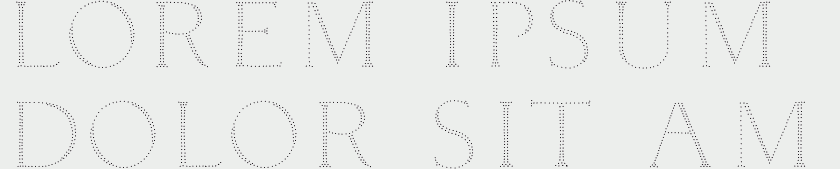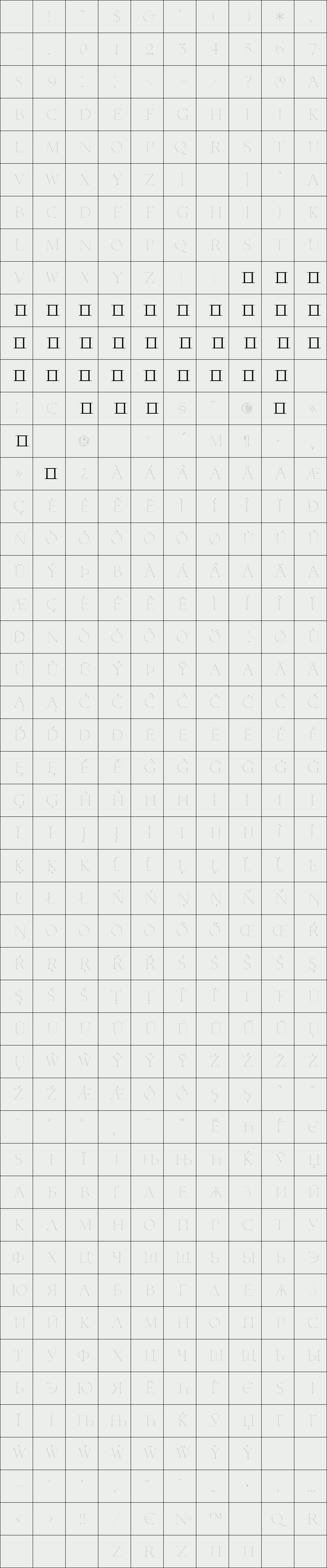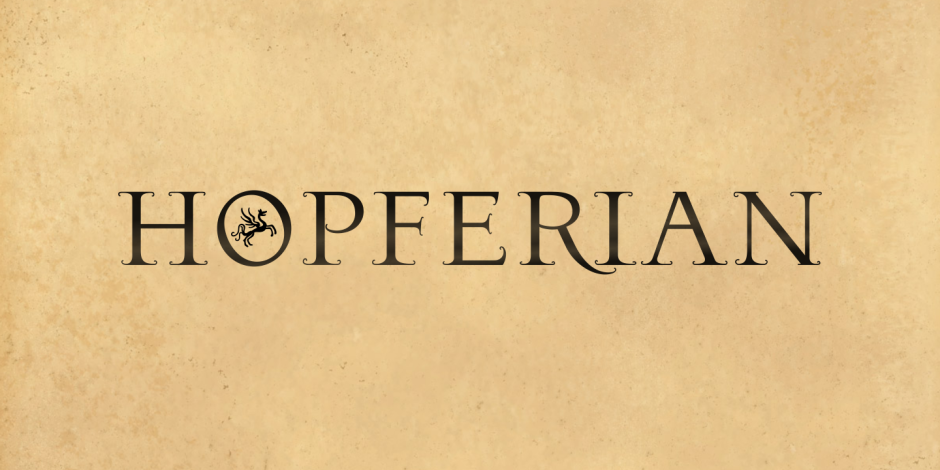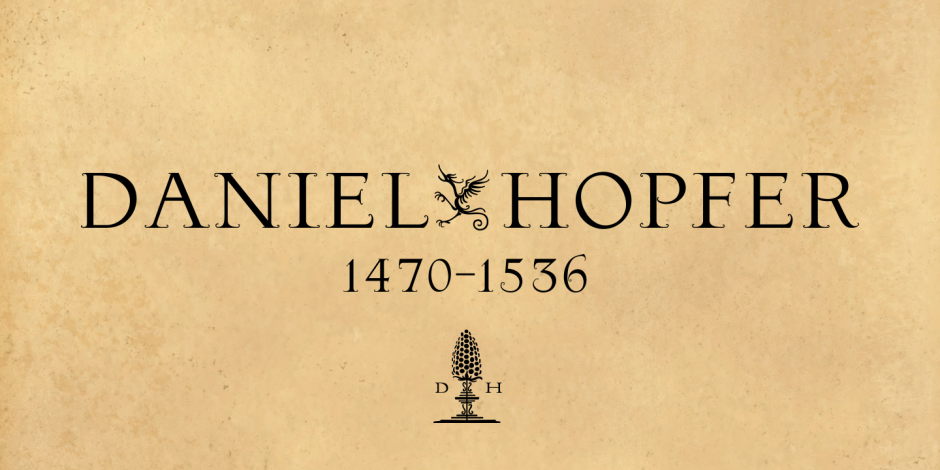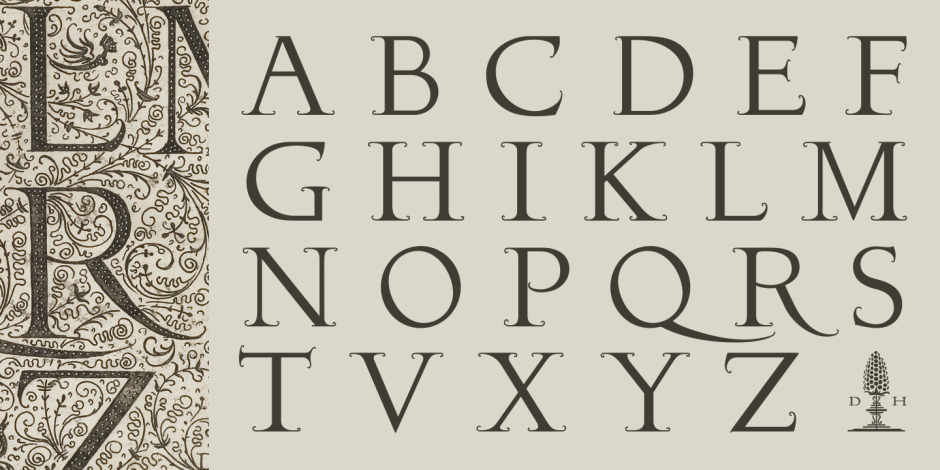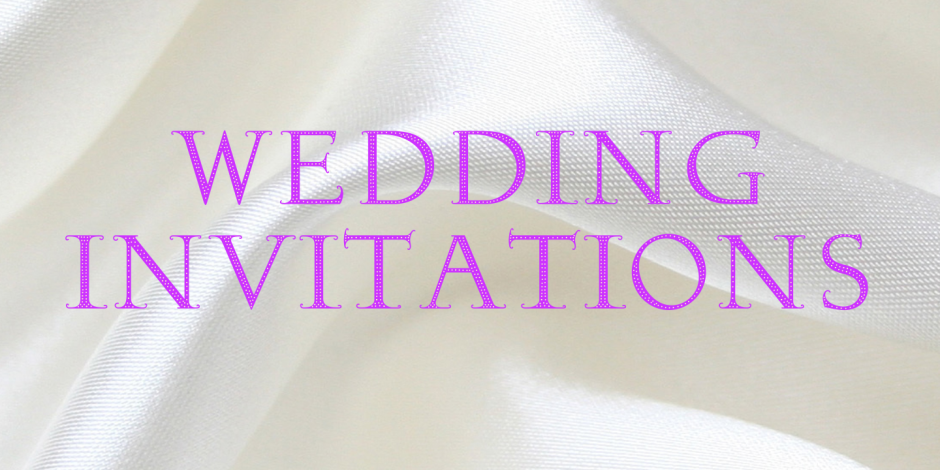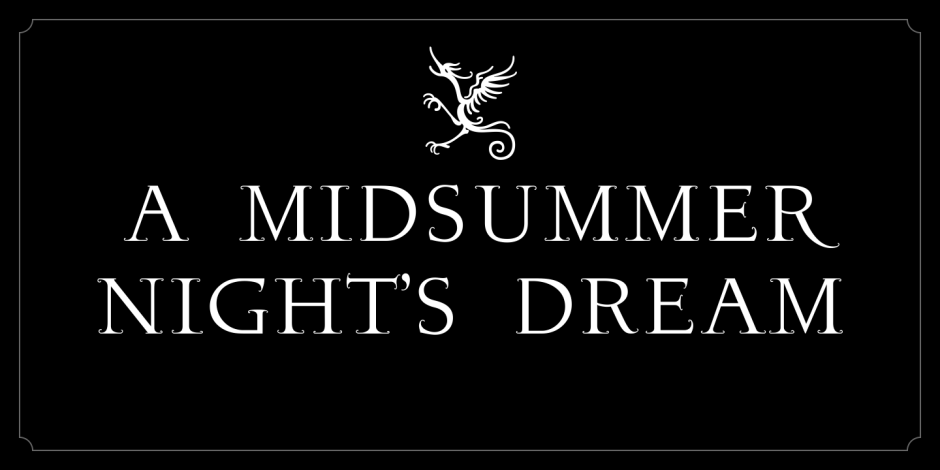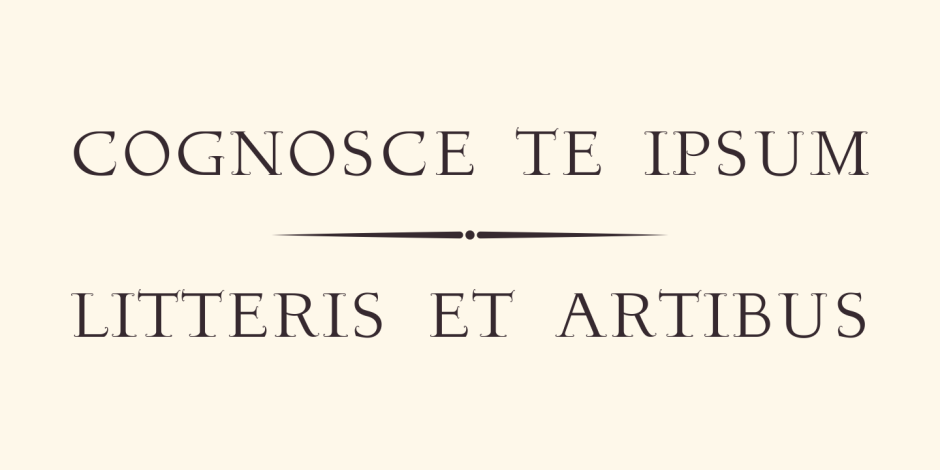
Hopferian
/ Hopferian - Dots-Mask
This font has been developed based on the engraving by the German artist Daniel Hopfer (1470-1536) listing the Latin ABC. While creating the font I tried to preserve the archaism and certain imperfection characteristic for the prototype to accentuate its charm. Fanciful convolution on the serif make it a bit fairy-tale like and cheerful. The font is also available with decorated dots as in the original version. All the letters in the font are capital.